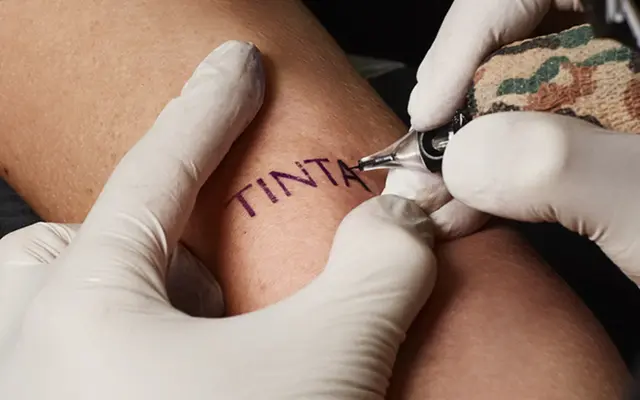
Tinta
Tipografies · Jordi Embodas, Fer Rodríguez · 2021
A variable humanist sans by Jordi Embodas and Fer Rodríguez that evokes the tactile quality of 15th-century Renaissance printing through organic, flared letterforms across four subfamilies simulating different ink and paper conditions.
Designed to recapture the warmth lost to cold, precise digital and offset printing, Tinta draws on the spirit of Renaissance printmaking without copying specific historical typefaces. Its four subfamilies, Coated, Uncoated, Broken Coated and Broken Uncoated, use variable font technology to mimic how ink behaves on different paper stocks, from crisp coated surfaces to the bleed of uncoated sheets. Six weights from Thin to Black, each with a matching italic, are complemented by a full suite of OpenType features including oldstyle figures, ligatures and proportional and tabular figure sets.
Described as a serifless roman with classical Renaissance proportions, organic forms, curving contours and flared endings, placing it firmly in the humanist sans tradition despite its lack of serifs.